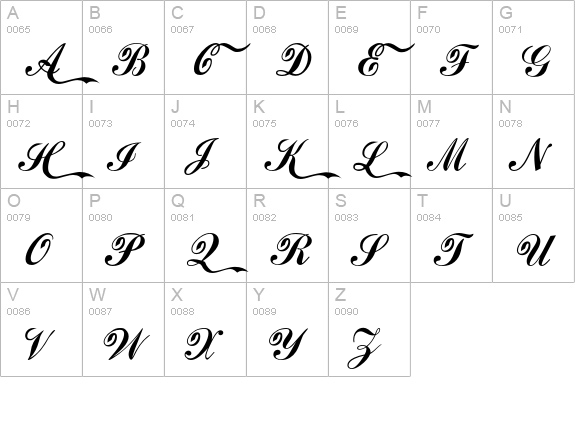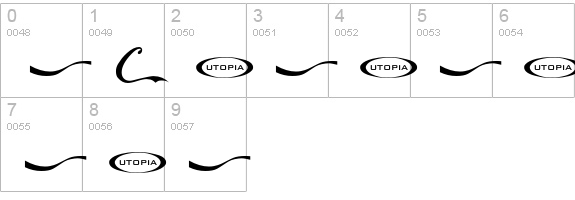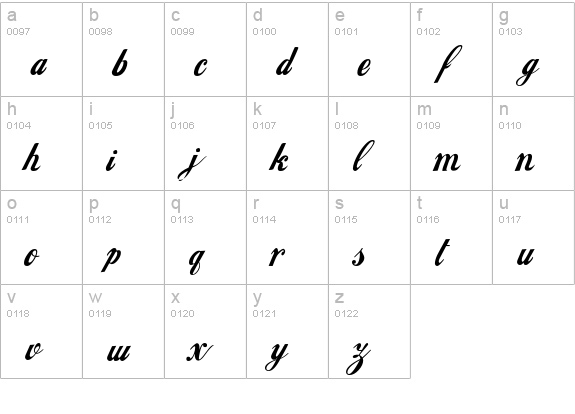
LokiCola Font Details
Introducing LokiCola font - a stylish and modern typeface that exudes sophistication and charm. With its sleek lines and contemporary design, LokiCola is perfect for a wide range of projects, from branding to editorial design. The font features a unique blend of elegance and playfulness, making it versatile and eye-catching. What sets LokiCola font apart is not only its striking appearance but also its accessibility. This font is available for free download at FontsMarket.com, allowing designers and creatives to easily incorporate it into their work without any cost. Embrace the creativity and versatility of LokiCola font and elevate your designs with its distinctive flair.